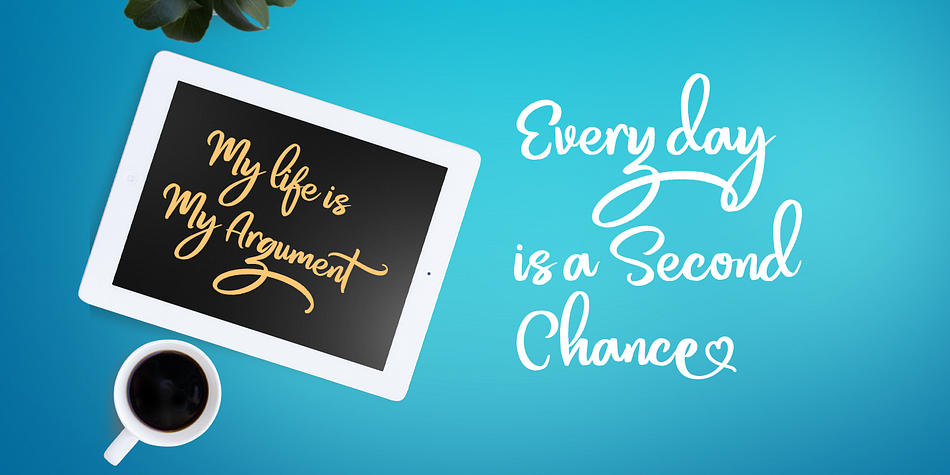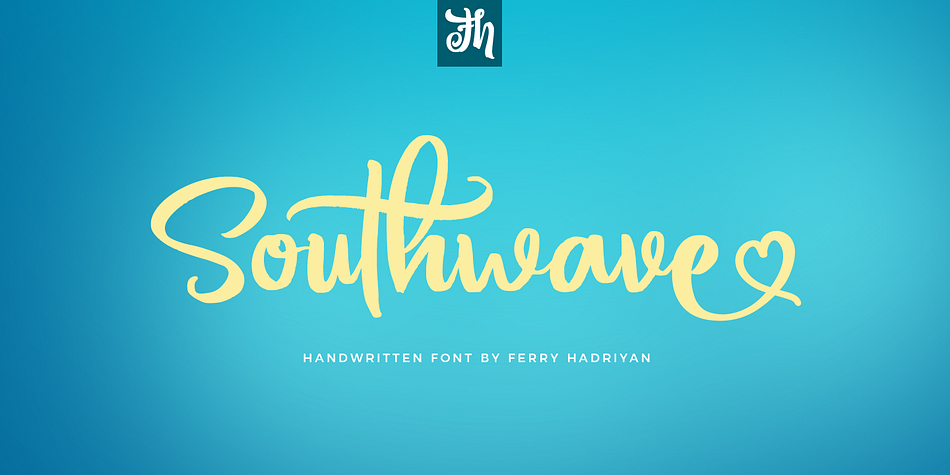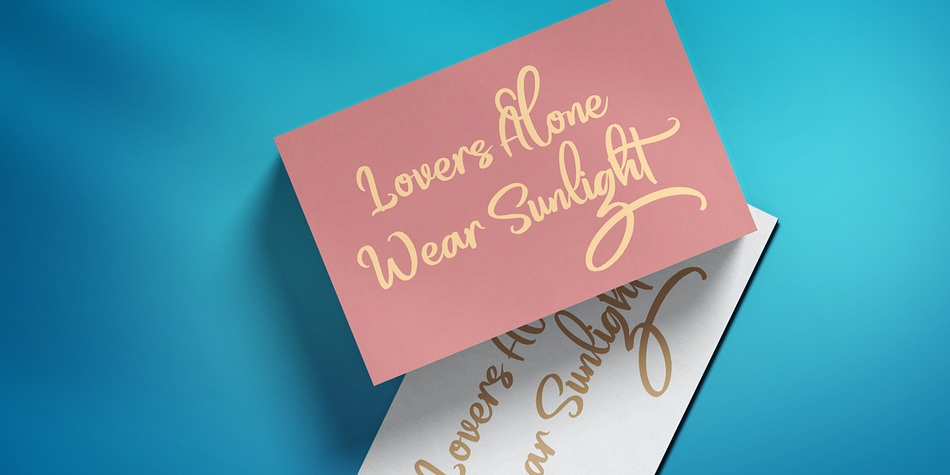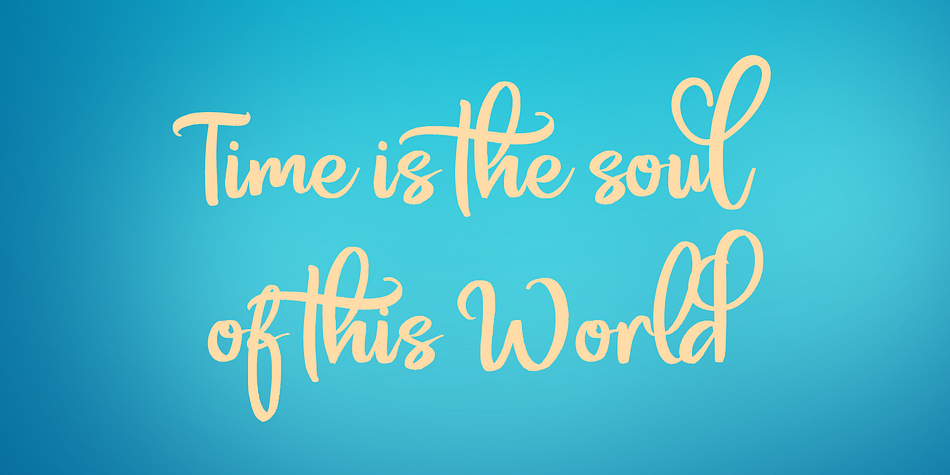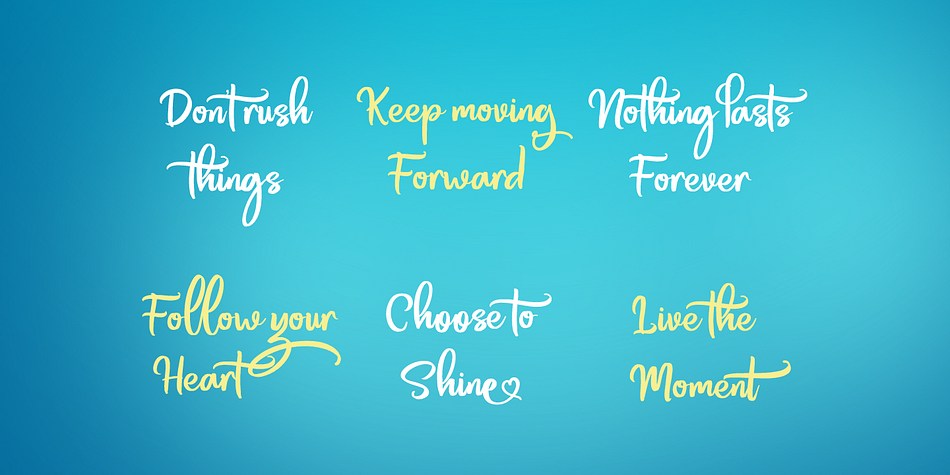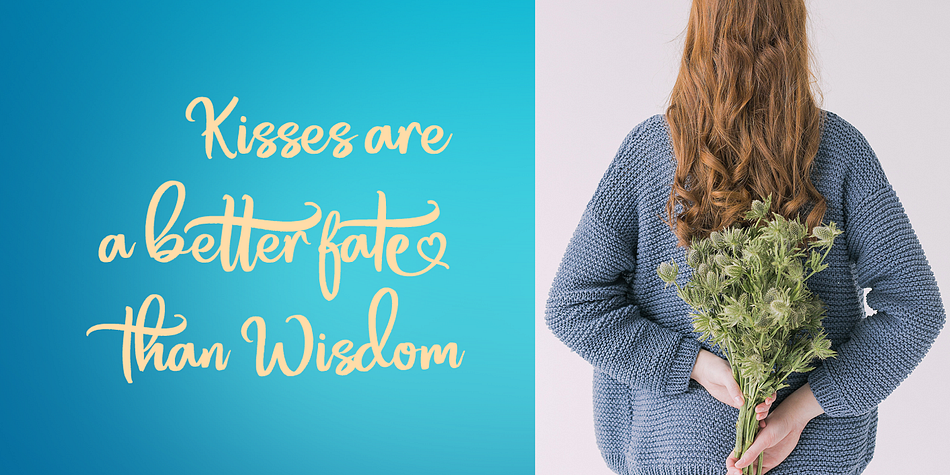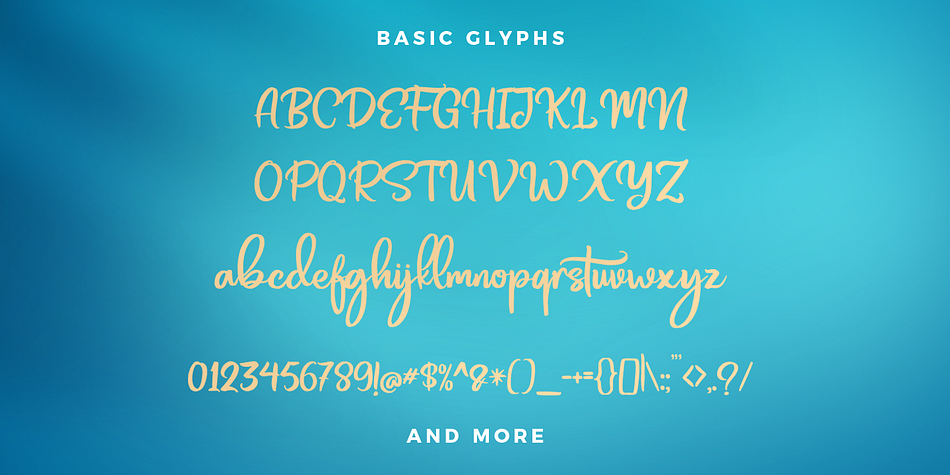
Designed by Ferry Hadriyan, Southwave is a script font published by feydesign.
Southwave - Handwritten Font
Southwave is script font with handlettering modern calligraphy style, with opentype feature include of the font. Suitable for design, element design, wedding, event, t-shirt, logo, badges, sticker, and awesome work, etc…
Feature Of The Font:
- All Standard Character, Symbol, Multilanguage, Ligature, Stylistic Set, and Swashes.
- Unique style fonts